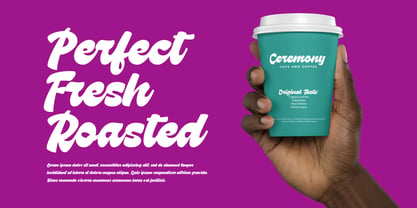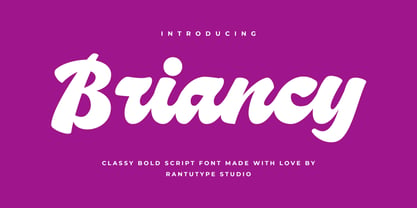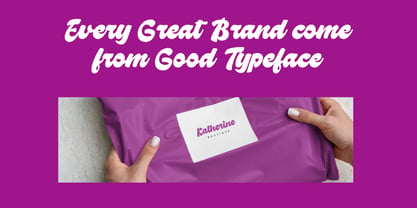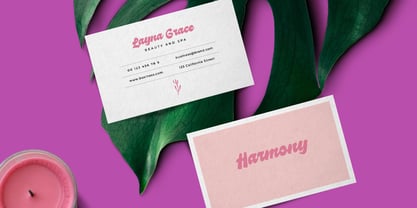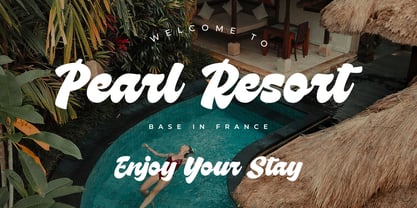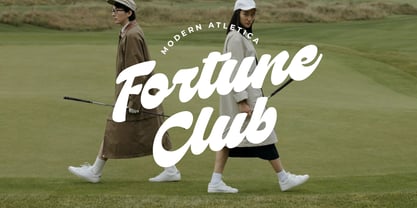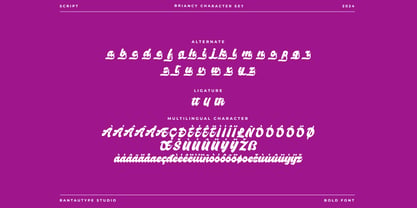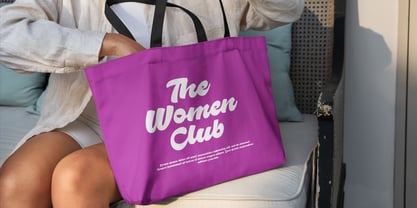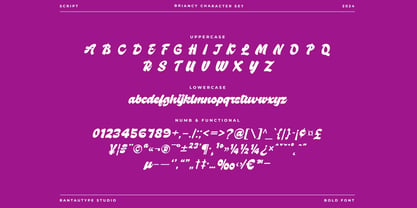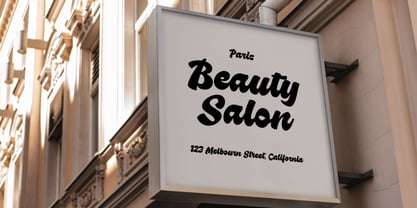
Briancy
by RantauType
The Briancy Font Family was designed by Yudi Pratama Chandra and published by RantauType. Briancy contains 1 styles. More about this family
Briancy is classy serif font made with passion that embraces grace. Briancy bring elegant touch and bold shape to create memoriable character.
Briancy is a beautiful choice for any creative endeavor, creating elegant, modern, chic, lifestyle design such as logotype, title, cover, branding, invitations, wedding designs, display and magazine, social media posts, advertisements, printed quotes, product packaging, corporate brand, product designs, labels, photography, watermarks, special events and any other project with elegant touch.
• Standart Glyphs
• Numberial and Functional
• Ligature and alternate
Designers: Yudi Pratama Chandra
Foundry: RantauType